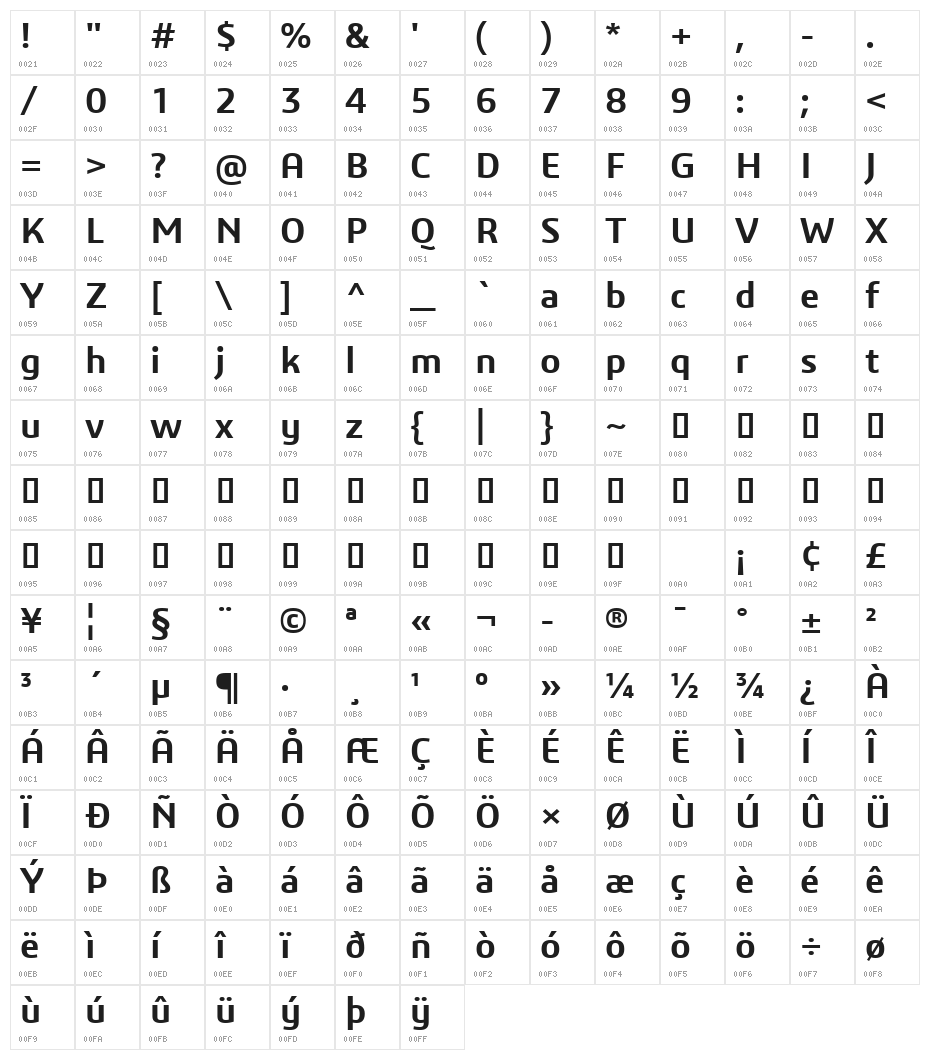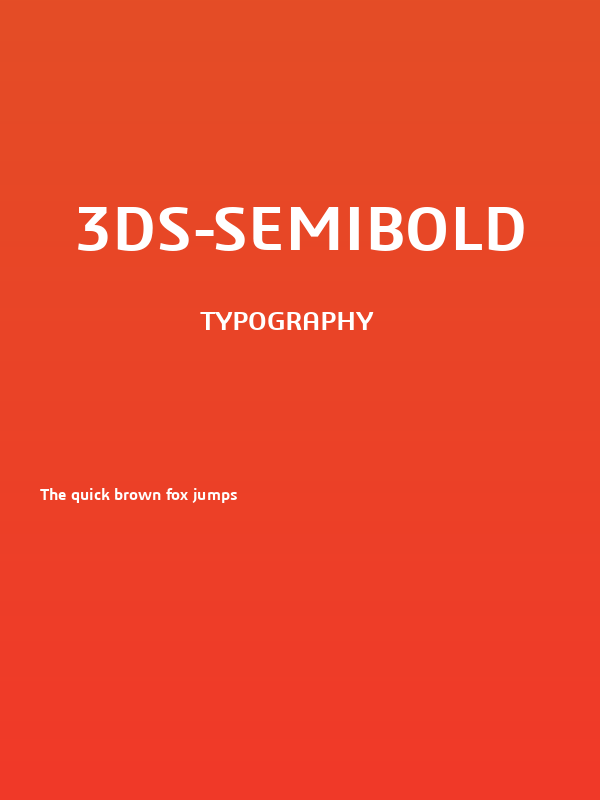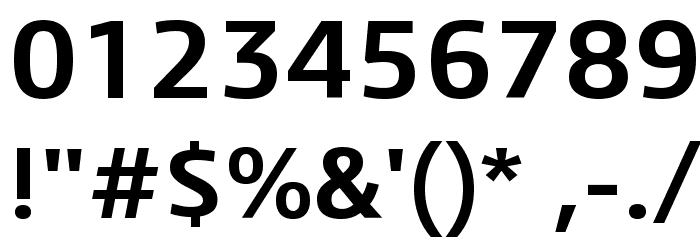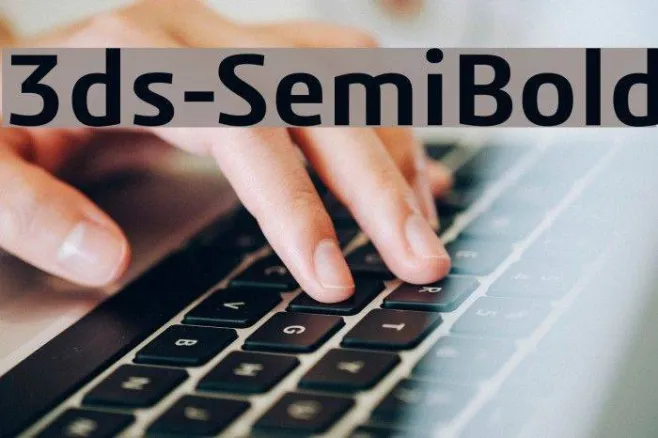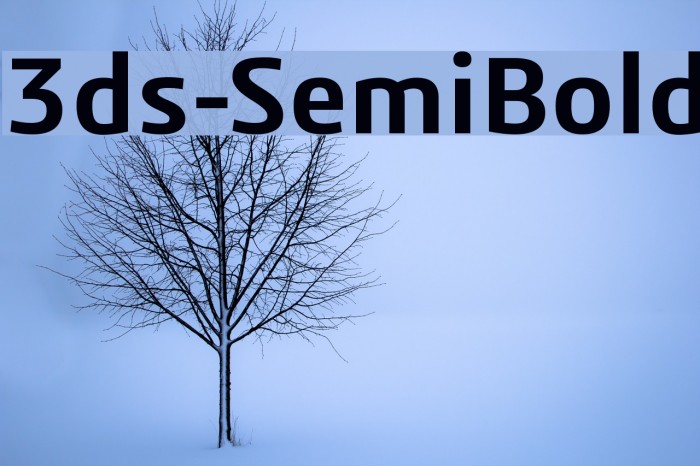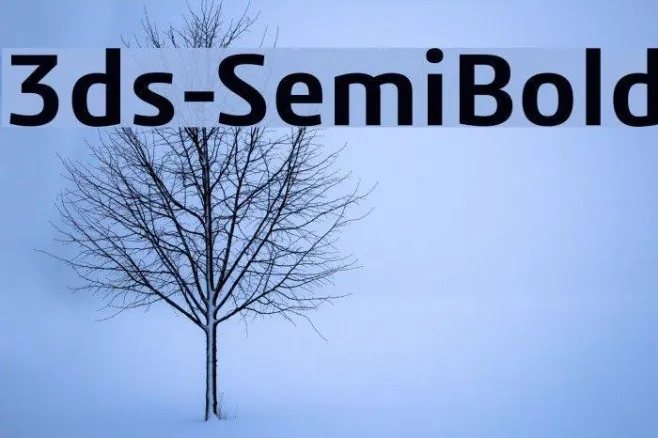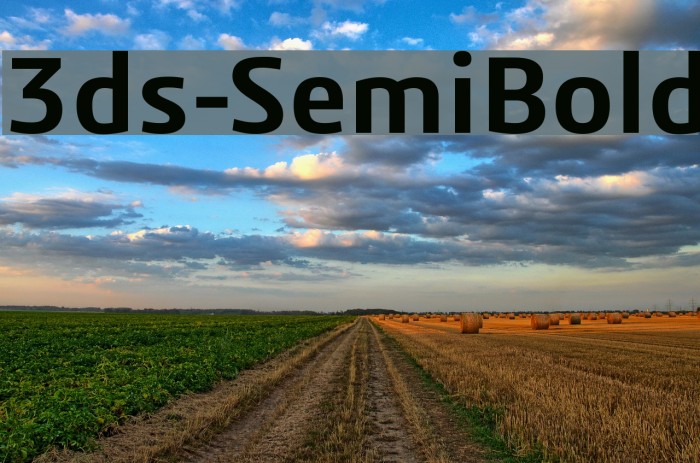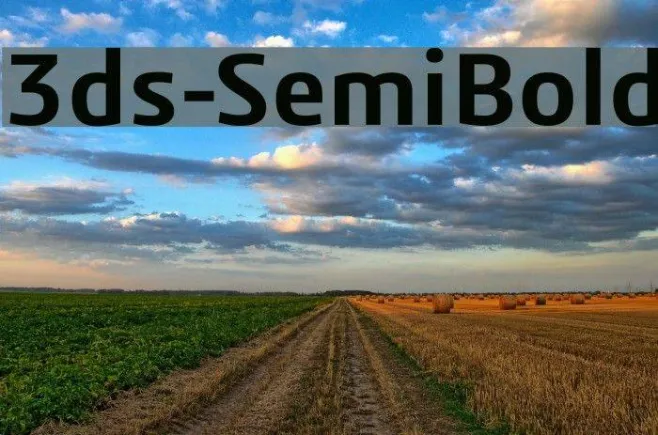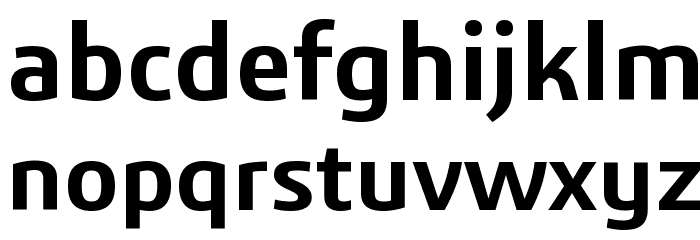
3ds-SemiBold Font
3ds-SemiBold Description
This font exhibits a modern and clean design with a semi-bold weight, offering a strong yet approachable appearance. The characters are well-balanced with consistent stroke widths, providing a harmonious and professional look. The uppercase letters are slightly taller than average, giving them a commanding presence, while the lowercase letters maintain a friendly and readable form. The numerals are clear and distinct, ensuring legibility in various contexts. Special characters are designed with the same attention to detail, making them suitable for a wide range of applications.